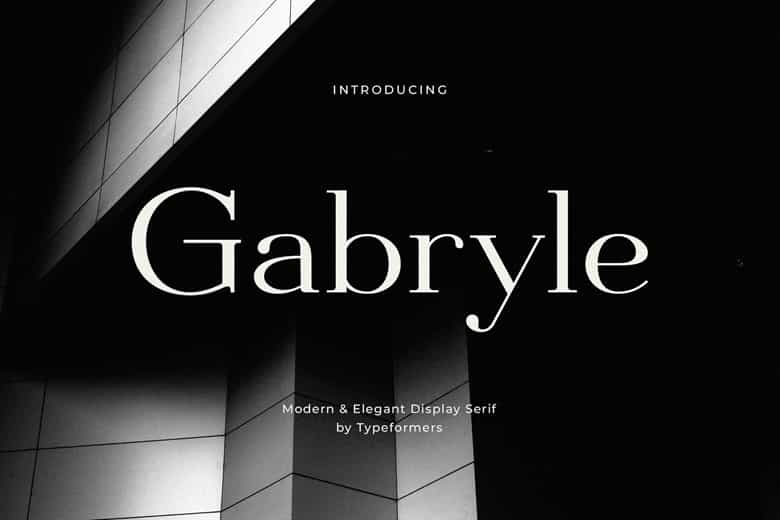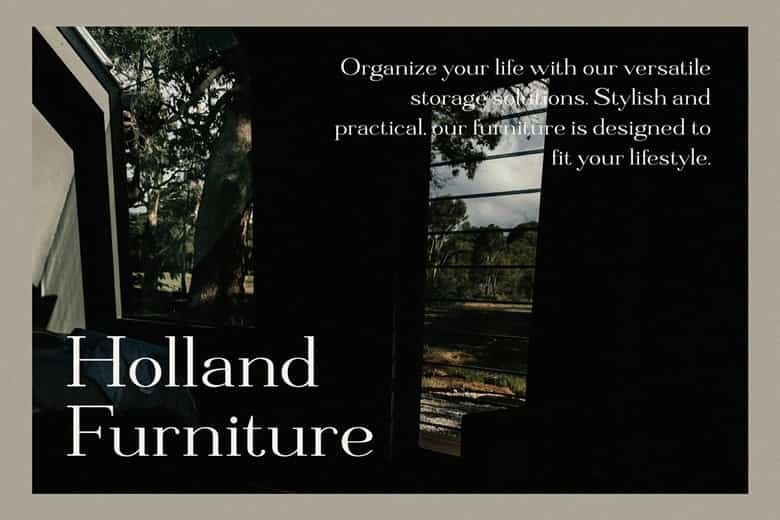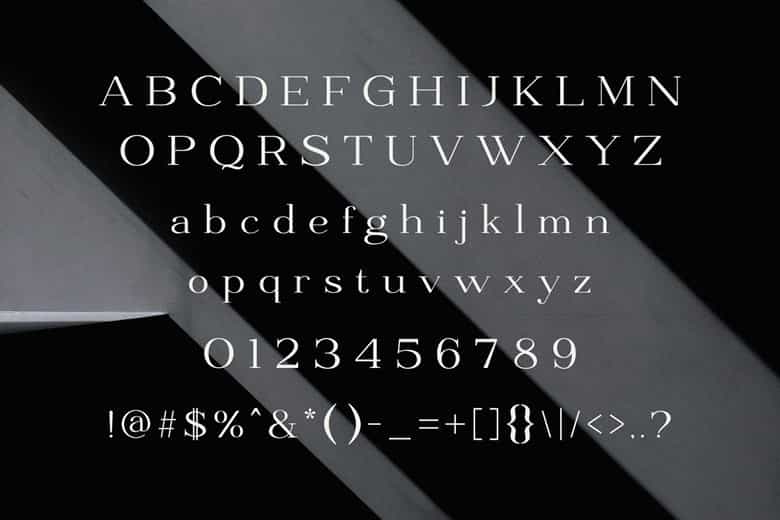
Discover Gabryle Font, part of the Serif collection—a versatile and unique font perfect for adding a personal touch to your projects. Download it for free and enjoy crafting designs with style, from invitations to social media posts. This font is available exclusively for personal use, giving you the freedom to create without limits. Unlock your creativity with Gabryle Font today!
Gabryle is a modern serif typeface designed by Typeformers. Even though it has a classy calligraphic influences to it, it’s not nevertheless outdated but feels contemporary and fresh. This is a modern and neat font which is best suited to be used as display for headings, logos, branding, magazines, product packaging and invitations.